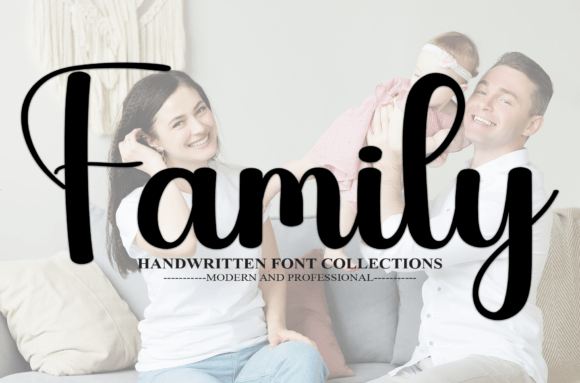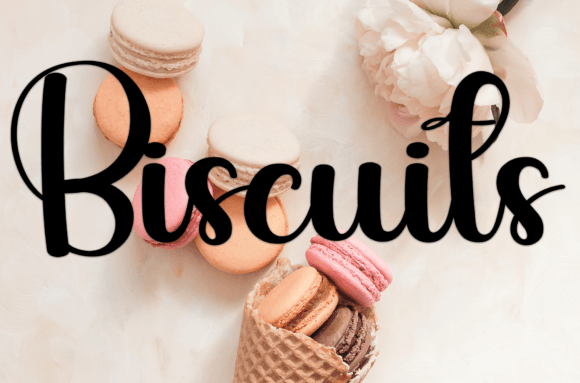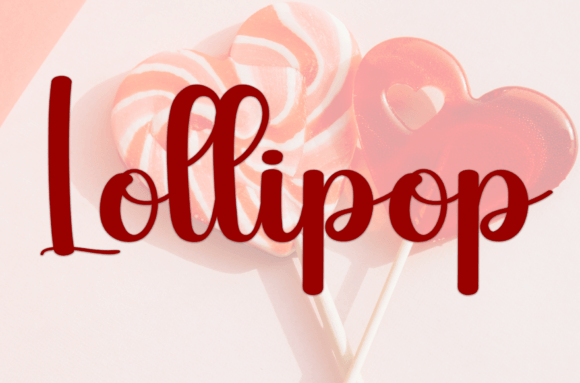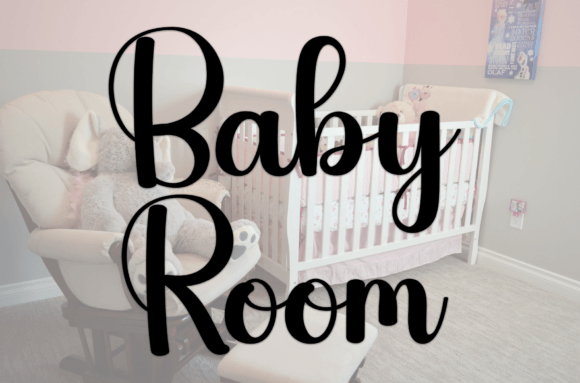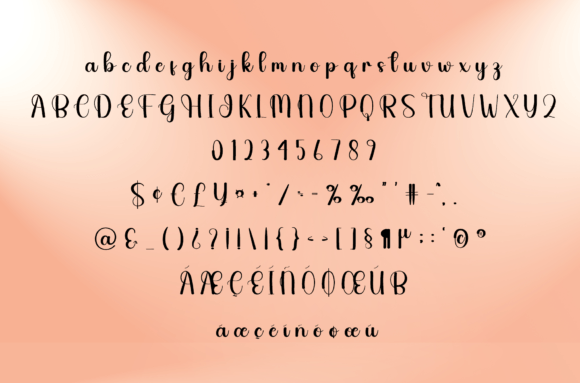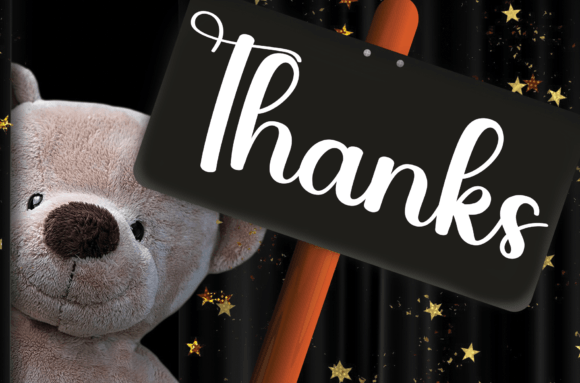
Baby Boy Font: The Sweetest Handwritten Font for Your Designs
Are you looking for a font that adds a touch of sweetness and playfulness to your designs? Look no further than the Baby Boy font! This adorable handwritten font is perfect for creating wedding invitations, cards, and other designs that require a friendly and cute feel.
What is Baby Boy Font?
Baby Boy font is a beautiful, handwritten typeface that exudes warmth and friendliness. Its sweet and charming letters are designed to bring a smile to your face, making it an ideal choice for designers and crafters who want to add a personal touch to their work.
This lovely font is perfect for a variety of design projects, including:
- Birthday cards and party decorations
- DIY crafts and scrapbooking
Why Choose Baby Boy Font?
So, what makes Baby Boy font so special? Here are just a few reasons why designers and crafters love this font:
- Friendly and approachable: Baby Boy font has a warm and welcoming feel that’s perfect for creating designs that feel personal and inviting.
- Cute and playful: This font is sure to bring a smile to your face with its adorable letters and sweet charm.
- Versatile: Baby Boy font can be used for a wide range of design projects, from formal wedding invitations to fun DIY crafts.
- Easy to read: Despite its playful feel, Baby Boy font is still easy to read, making it perfect for designs that require a clear and legible text.
How to Use Baby Boy Font in Your Designs
Using Baby Boy font in your designs is easy! Here are a few tips to get you started:
- Pair it with other fonts: Baby Boy font looks great when paired with other fonts, such as bold sans-serif fonts or elegant script fonts.
- Experiment with colors: This font looks great in a variety of colors, from soft pastels to bright and bold hues.
- Add some texture: Consider adding some texture to your design, such as a subtle pattern or a photo background, to give it a more organic feel.
Tips and Tricks for Working with Baby Boy Font
Here are a few more tips and tricks to help you get the most out of Baby Boy font:
- Use it for headings and titles: Baby Boy font is perfect for headings and titles, where its playful feel can really shine.
- Mix it with other design elements: Consider combining Baby Boy font with other design elements, such as illustrations or graphics, to create a unique and eye-catching design.
- Experiment with different sizes: Don’t be afraid to experiment with different font sizes to create visual interest and hierarchy in your design.
In conclusion, Baby Boy font is a sweet and charming handwritten font that’s perfect for designers and crafters who want to add a touch of warmth and friendliness to their designs. With its playful feel, versatility, and ease of use, this font is sure to become a favorite in your design toolkit. So why not give it a try today and see what amazing designs you can create?